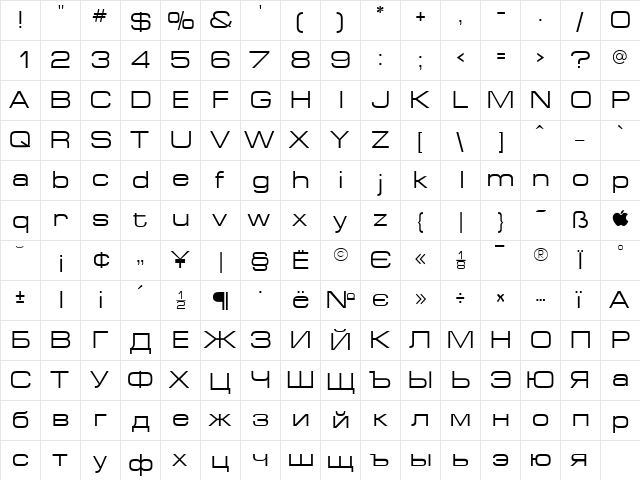
font142 Normal
Design Context for font142 Typeface
font142 takes a measured approach to typography — its balanced proportions and neutral character make it a reliable workhorse for both digital and print work.